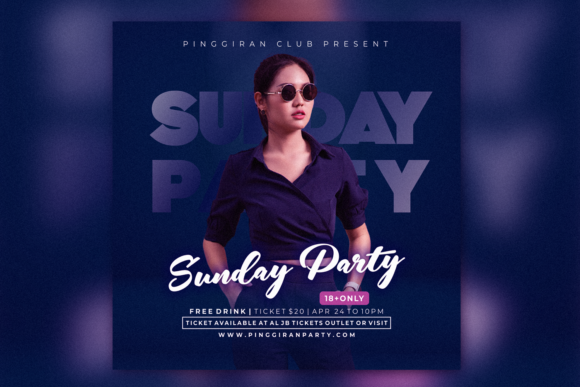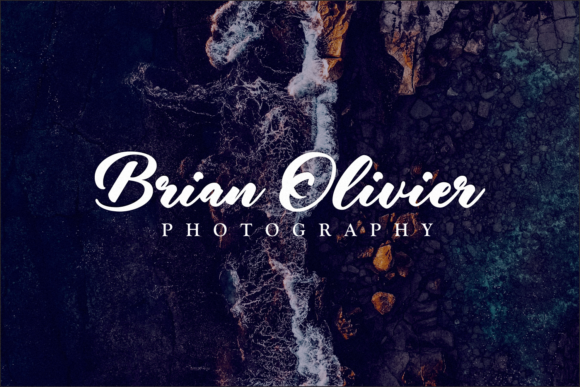
The Diplomat Signature Font
db-ku.com - Script & Handwritten -- The Diplomat Signature is a bold handwritten font with a natural look, strong and bold taste.